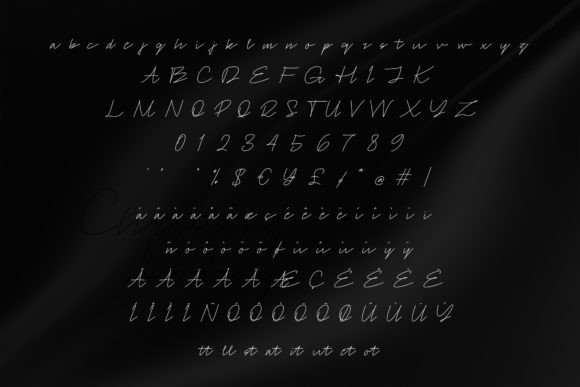
Introduction to Signotera Font
As designers, we’ve all been there – staring at a blank canvas, trying to bring our creative vision to life. The right font can make all the difference. For me, it was the moment I stumbled upon the Signotera Font, and I knew I had found the perfect companion for my next project. Its delicate, elegant, and flowing handwritten style instantly captured my attention, and I couldn’t wait to explore its full potential.
What sets the Signotera Font apart is its beautiful and well-balanced characters, making it a versatile design resource that can be used for a wide range of creative projects. Whether you’re working on a high-quality design or a free download for a client, this font is sure to impress. With its transparent background, you can seamlessly integrate it into any design, making it a valuable asset for any designer’s toolkit.
As a valuable addition to any design arsenal, the Signotera Font offers endless possibilities for creativity and self-expression. In this article, we’ll delve into the world of this stunning font and explore its features, uses, and why it’s an essential resource for any designer.
Key Features of Signotera Font
- Unique and elegant script font with a transparent background, perfect for adding a touch of sophistication.
- Includes 6 styles: Regular, Italic, Bold, Bold Italic, Swash, and Initials, offering versatility for various design needs.
- Designed with a high level of detail and precision, ensuring crisp and clear text at resolutions up to 300 DPI.
- Perfect for use in logos, branding, invitations, and other design projects where a touch of elegance is required.
Honest Review: Signotera Font
I recently had the chance to work with the Signotera Font for a creative project and I must say it’s been a game-changer. ✨ With its high quality and modern design, it’s quickly become one of my go-to fonts for any project that requires a touch of elegance.
One of the things that I love about Signotera Font is its versatility. It works beautifully on both light and dark backgrounds, making it easy to use in a variety of different design contexts. Plus, the transparent background option is a huge plus for designers who need to create graphics that will blend seamlessly with their surroundings.
- High quality and modern design
- Works beautifully on both light and dark backgrounds
- Easy to use in a variety of different design contexts
- ⚠️ Some users may find the font to be too simplistic for certain design projects
Overall, I’m really impressed with the Signotera Font. It’s a great addition to any designer’s toolkit and I would definitely recommend it to anyone looking for a high-quality, easy-to-use font for their next creative project. Whether you’re looking for a font for a free download or a design resource to use in a commercial project, Signotera Font is definitely worth checking out.
Tips for Getting the Most Out of Signotera Font
Experiment with different font sizes, colors, and styles to get the most out of the Signotera Font. You can also combine it with other design elements to create a unique and visually appealing design.
The Signotera Font is ideal for designing logos, social media graphics, presentations, documents, and other visual content. It’s a versatile font that can be used in a variety of creative projects.
Does the Signotera Font have a transparent background?
Yes, the Signotera Font has a transparent background, making it easy to use in design projects that require a clear background. This feature is especially useful for designers who want to create visually appealing graphics and logos.